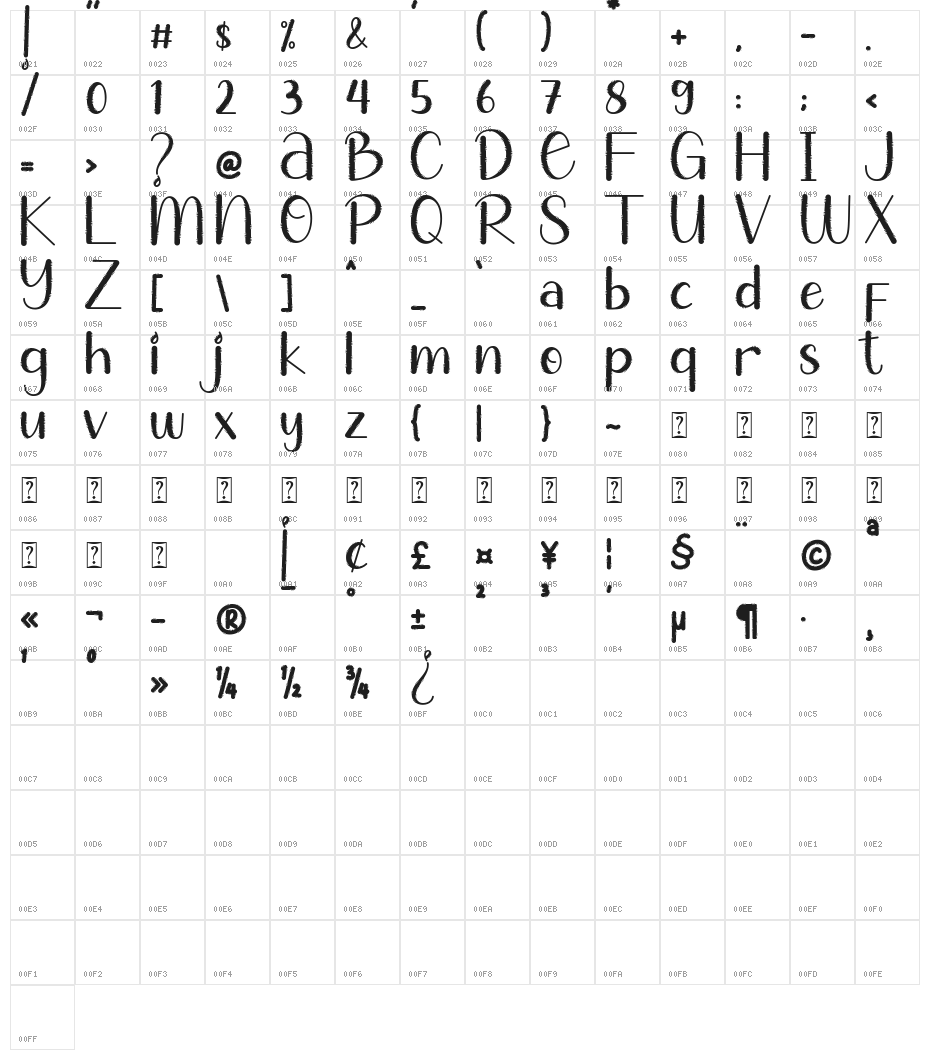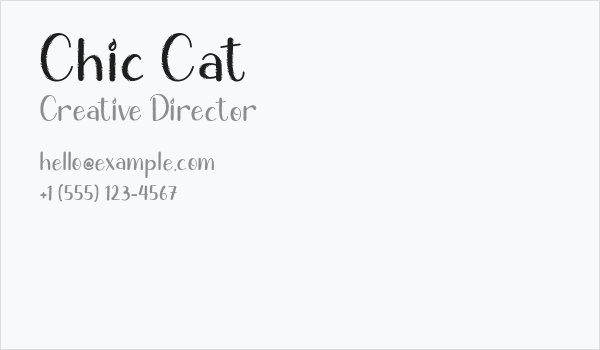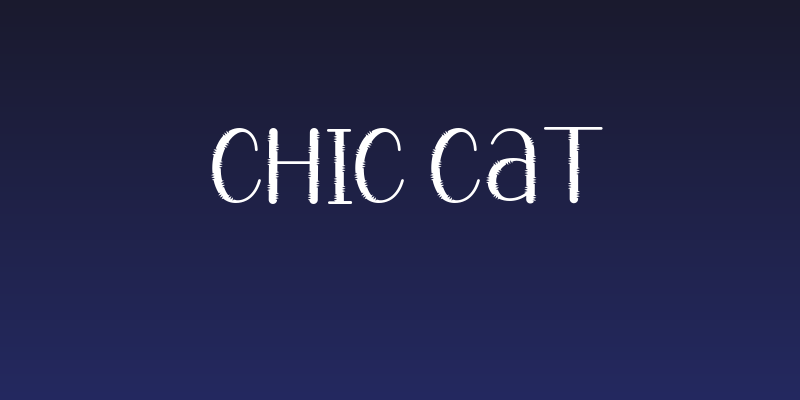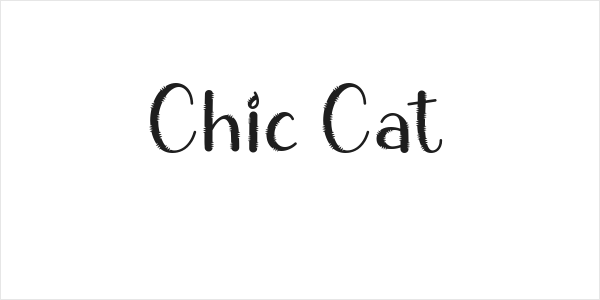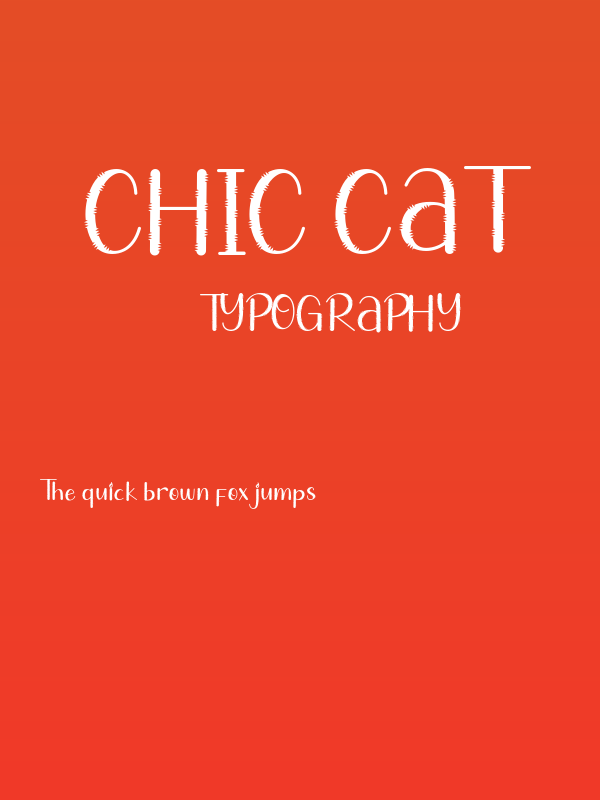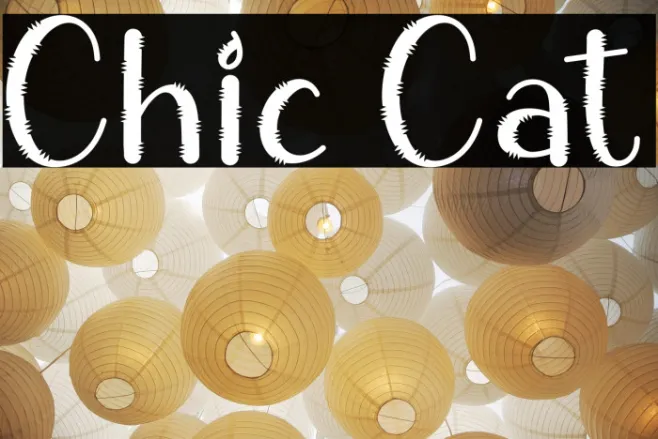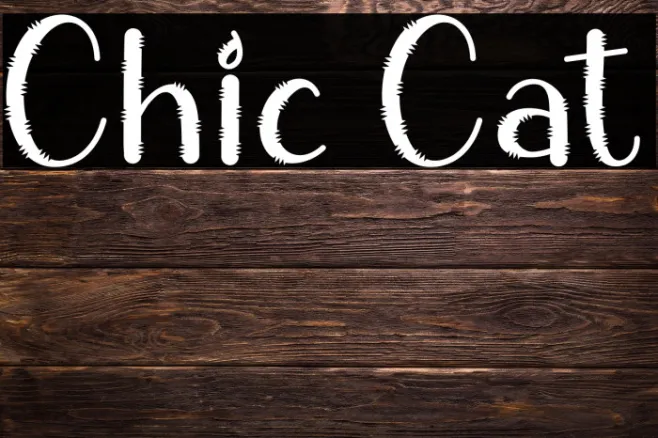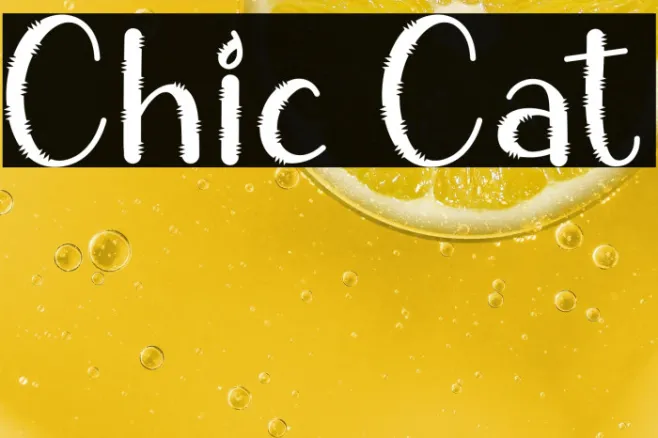
Chic Cat Font
Chic Cat Description
This font features a playful and whimsical design with a handwritten style that incorporates unique brush-like strokes. The characters have a slightly irregular baseline, adding to the casual and artistic feel. The uppercase and lowercase letters are distinct, with some letters featuring exaggerated curves and loops. The numbers and special characters maintain the same playful aesthetic, making the font suitable for creative and informal projects. The overall appearance is lively and energetic, with a touch of artistic flair.
| Use Case | Logos, Posters, Creative projects |
| Proposed Projects | Ideal for children's books, greeting cards, playful branding, and creative posters. |